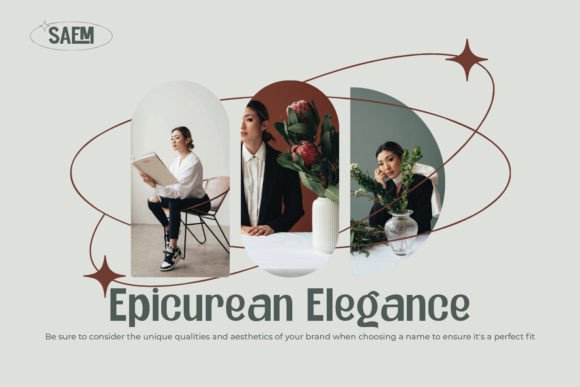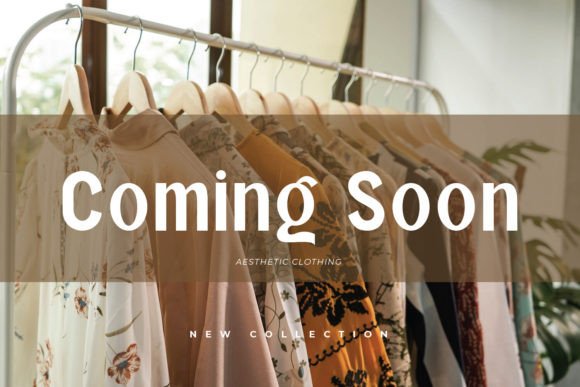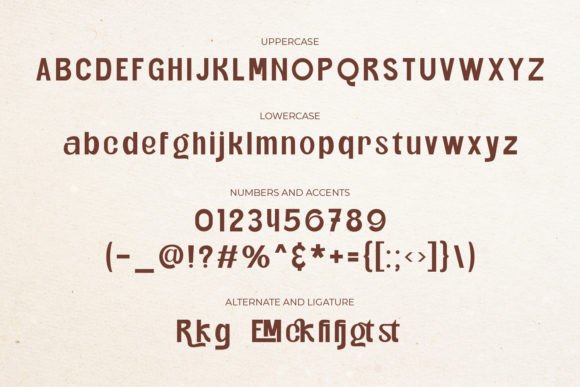
Introduction to Rogtost Font
Have you ever been working on a creative project, pouring your heart and soul into the design, only to feel like something is missing? Maybe it’s the perfect font to elevate your branding materials or the ideal script to make your greeting cards stand out. If you’re a designer, you know the struggle is real. That’s where the Rogtost Font comes in – a stunning sans display font with a calligraphy style that’s sure to take your designs to the next level.
With its beautiful, high-quality design, the Rogtost Font is a valuable resource for any designer looking to add some sophistication and elegance to their work. Whether you’re creating invitations, business cards, quotes, or posters, this font is sure to make your project shine. And the best part? It’s easy to use, with Open Type features that can be accessed in popular design programs like Adobe Illustrator and Corel Draw.
So why settle for a generic font when you can have a high-quality, free download that’s specifically designed for creative projects? With the Rogtost Font, you’ll be able to create transparent backgrounds, add swash and ligature effects, and access a wide range of alternative characters with ease. Whether you’re a seasoned pro or just starting out, this font is a must-have for any design enthusiast.
Key Features of Rogtost Font
- Unique, hand-drawn design with a transparent background for versatility
- Designed to be highly legible in various font sizes and resolutions
- Perfect for branding, logos, and other design elements in creative projects
Honest Review: Rogtost Font
I recently stumbled upon the Rogtost Font, and I must say it’s a hidden gem for designers. With its free download option, it’s definitely a design resource worth checking out.
The high-quality design of the Rogtost Font makes it perfect for a variety of creative projects, from logos to brochures. The font’s unique style and versatility allow for endless possibilities.
- High-quality design suitable for various creative projects
- Unique style that can add a touch of elegance to any design
- Transparent background, allowing for seamless integration with any design element
- The Rogtost Font may not be suitable for formal or professional designs that require a more conservative font style
- The font’s unique style may not appeal to designers who prefer more traditional or classic fonts
Overall, I’m impressed with the Rogtost Font. Its high-quality design, unique style, and free download option make it a valuable addition to any designer’s toolkit. While it may not be suitable for every project, it’s definitely worth exploring for the right creative project.
Rogtost Font
Transparent Background and Tips
The Rogtost Font comes with a transparent background, making it ideal for creating graphics with a subtle design. To get the most out of the Rogtost Font, use it in combination with other design elements, such as images and shapes, to create a visually appealing design.
The Rogtost Font is suitable for a variety of creative projects, including:
- Business card design
- Poster design
- Brochure design
Yes, the Rogtost Font includes a transparent background option, allowing you to easily integrate it into your design without any background distractions. This feature makes it ideal for use in creative projects where a clear and unobtrusive font is necessary.